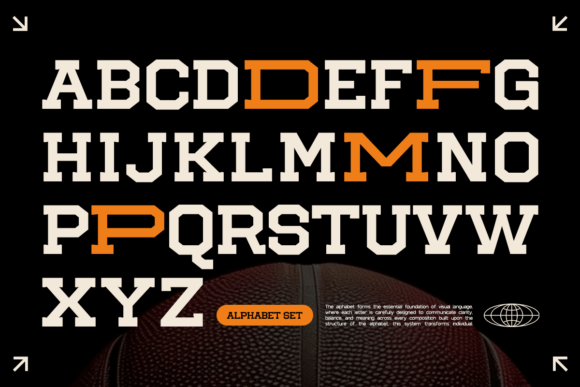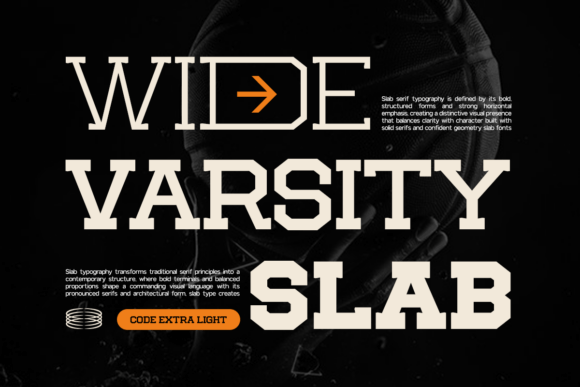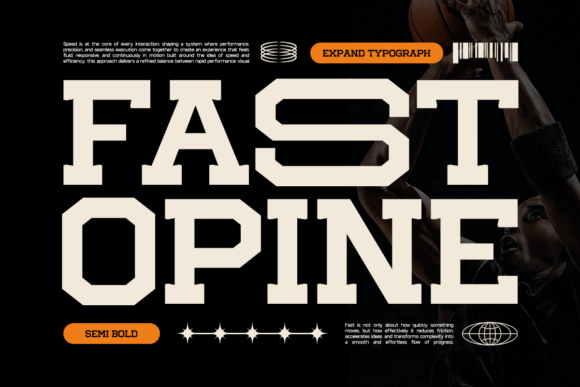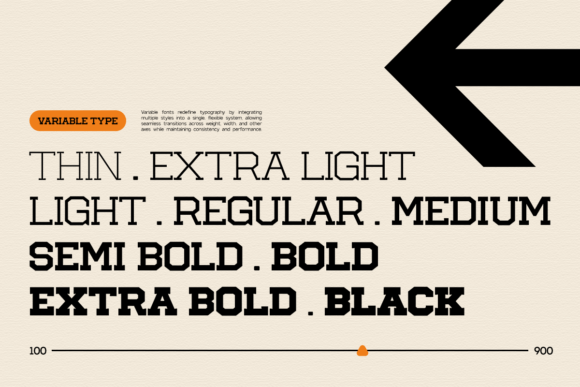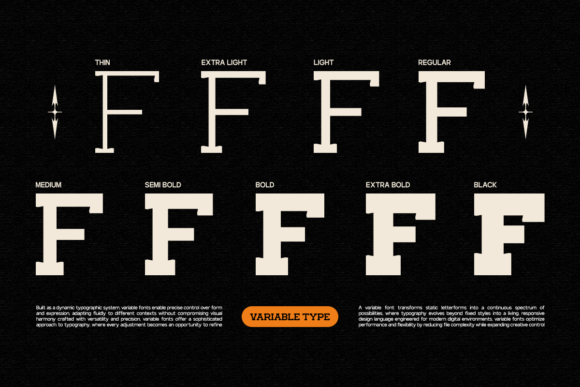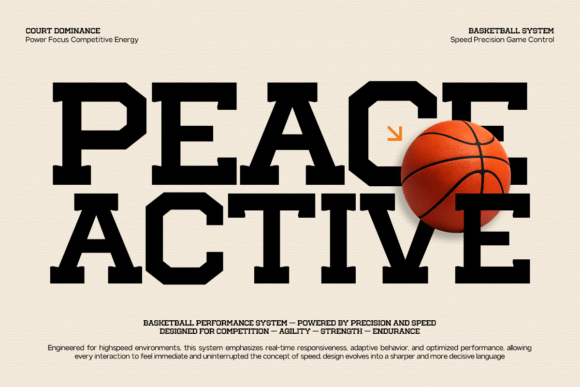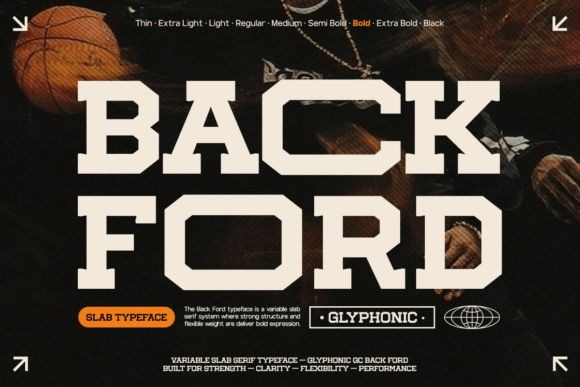
Introducing Back Ford: The Bold Slab Serif Typeface for Modern Designs
In the world of typography, a well-crafted font can make all the difference in conveying a message, expressing a brand’s personality, and captivating an audience. Meet Back Ford, a bold slab serif typeface that embodies the perfect blend of strength, clarity, and urban-inspired character. Designed to deliver power, clarity, and visual impact, Back Ford is the ideal choice for designers and crafters looking to create a confident typographic voice for modern streetwear, sports branding, posters, and bold editorial compositions.
The Design Philosophy of Back Ford
Back Ford’s design is rooted in its strong structure, sharp geometry, and urban-inspired character. The typeface features a thick slab construction, angular cuts, and solid proportions, which give it a striking presence that feels both vintage-inspired and contemporary. The athletic-style letterforms evoke a sense of energy and dynamism, making it perfect for designs that require a bold and confident voice.
Key Features of Back Ford
- Bold Slab Serif Construction: Back Ford’s thick slab construction provides a solid foundation for creating impactful typography.
- Angular Cuts: The angular cuts add a touch of sharpness and sophistication to the typeface, making it ideal for designs that require a modern edge.
- Solid Proportions: The solid proportions of Back Ford ensure that the typeface remains legible and readable, even at large sizes.
- Athletic-Style Letterforms: The athletic-style letterforms give Back Ford a dynamic and energetic feel, perfect for sports branding and streetwear designs.
Use Cases for Back Ford
Back Ford’s versatility makes it an excellent choice for a wide range of design projects, including:
- Sports Graphics: Back Ford’s bold and athletic design makes it perfect for sports branding, posters, and editorial compositions.
- Apparel Branding: The typeface’s urban-inspired character and confident typographic voice make it ideal for streetwear and fashion designs.
- Packaging: Back Ford’s striking presence and solid proportions make it an excellent choice for packaging designs that require a bold and attention-grabbing typography.
- Music Visuals: The typeface’s energetic and dynamic feel makes it perfect for music visuals, such as album covers and concert posters.
Crafting a Confident Typographic Voice with Back Ford
Back Ford is designed to help designers and crafters create a confident typographic voice that resonates with their audience. The typeface’s structured forms ensure strong readability, while its expressive and energetic appearance adds a touch of personality to any design. Whether you’re working on a digital project or a print design, Back Ford is the perfect choice for creating a bold and impactful typography.
Blending Classic Slab Serif Strength with Modern Urban Aesthetics
Back Ford seamlessly blends classic slab serif strength with modern urban aesthetics, making it an excellent choice for designers looking to create a unique and captivating typography. The typeface’s vintage-inspired feel and contemporary design elements ensure that it remains relevant and fresh, even in today’s fast-paced design landscape.
In conclusion, Back Ford is a bold slab serif typeface that is designed to deliver power, clarity, and visual impact. With its strong structure, sharp geometry, and urban-inspired character, Back Ford creates a confident typographic voice suited for modern streetwear, sports branding, posters, and bold editorial compositions. Whether you’re a designer or crafter, Back Ford is an excellent choice for creating impactful typography that resonates with your audience.